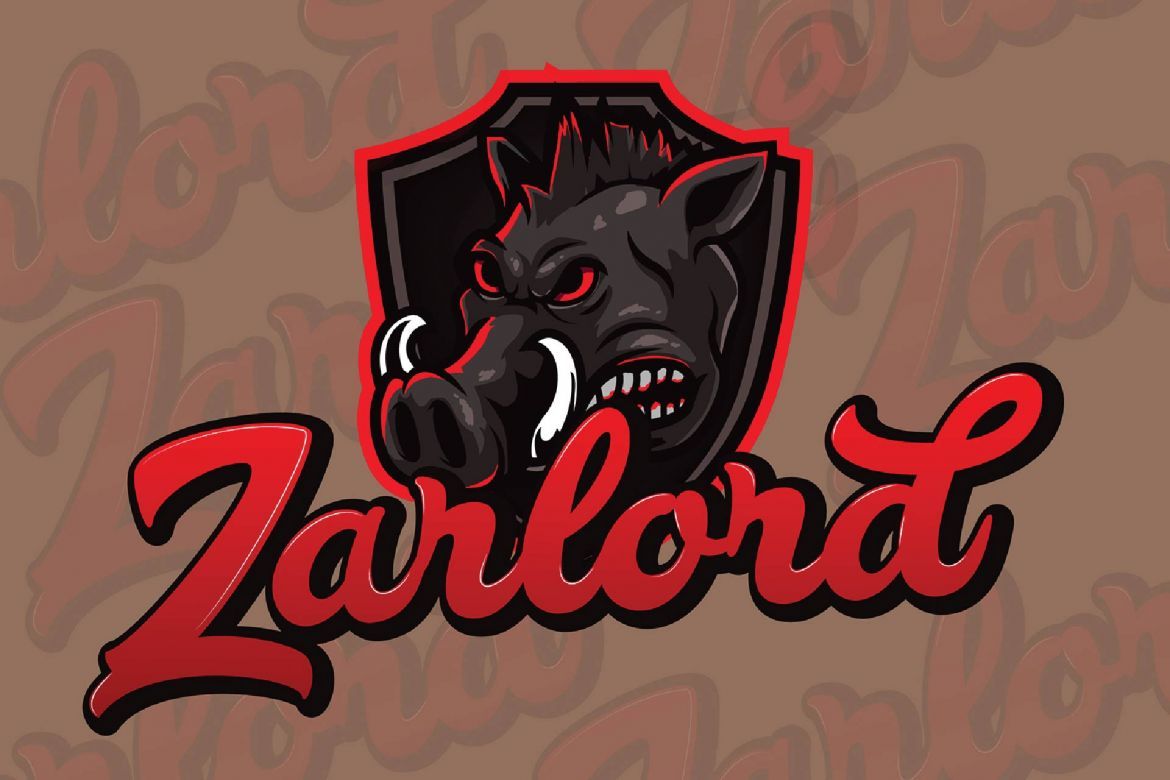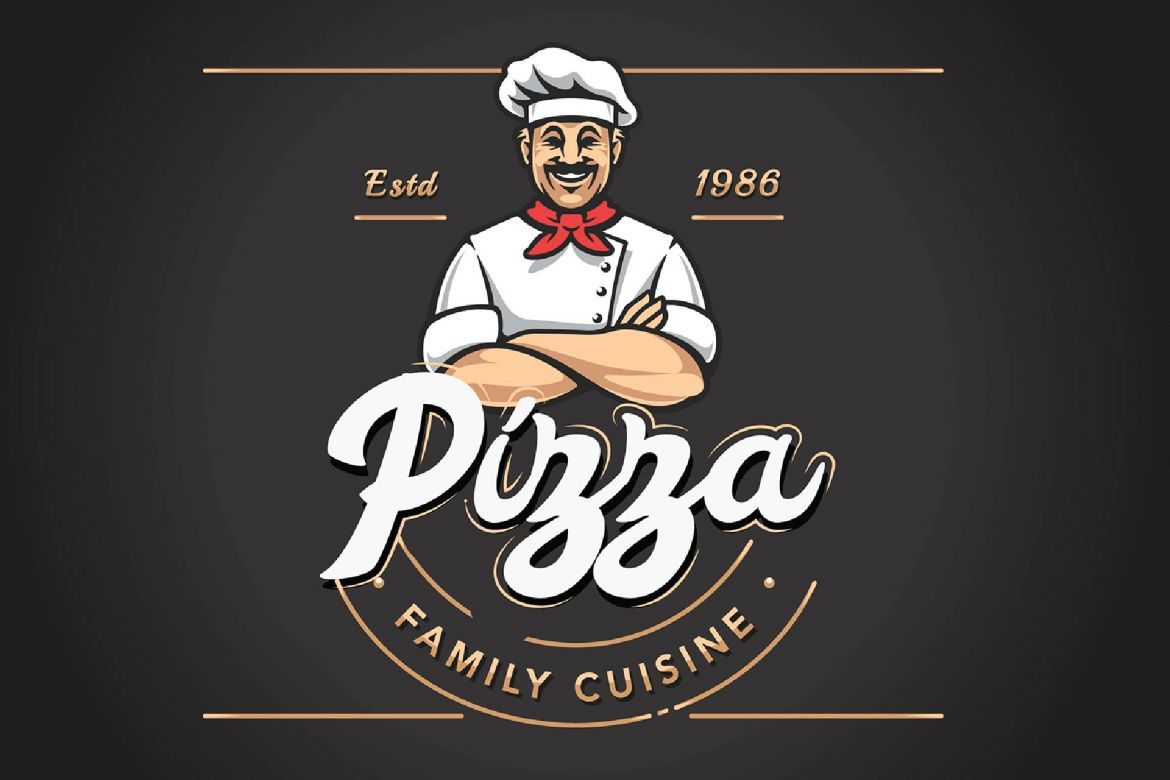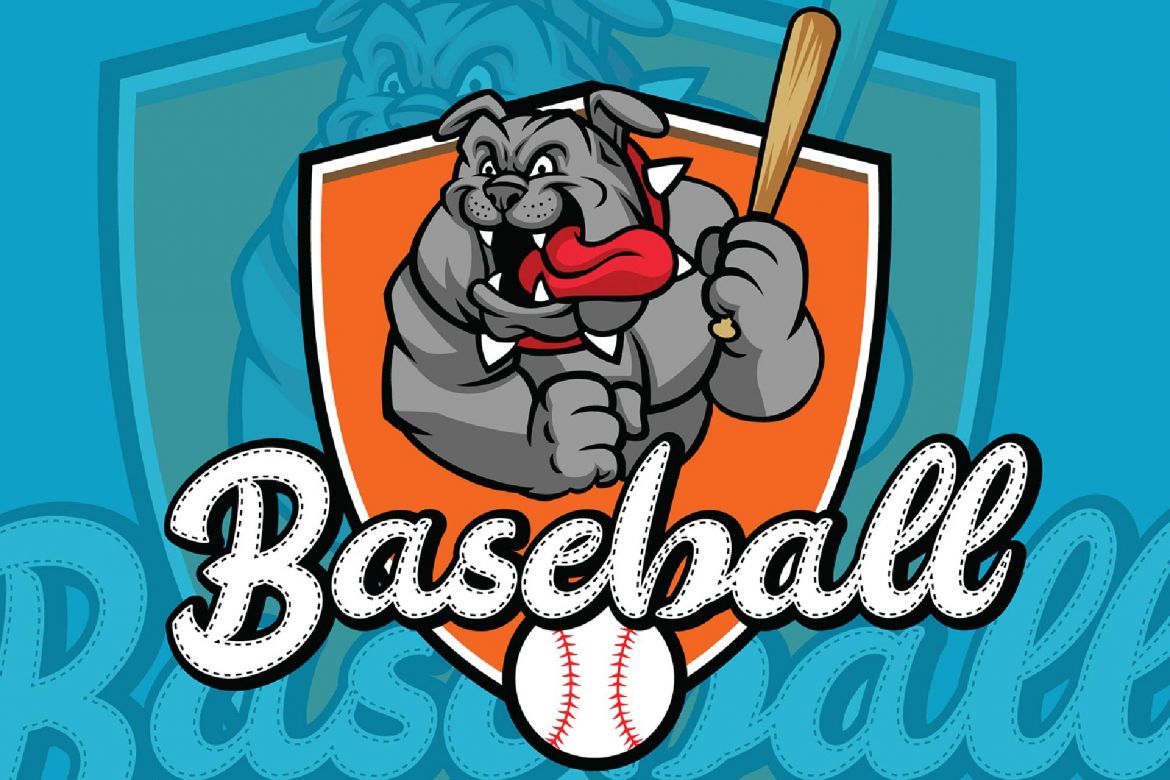
Aloha - Casual Bold Typeface
Aloha - Casual Bold Typeface with a calligraphy style, So beautiful on invitation like greeting cards, branding materials, business cards, quotes, posters, and more!
The alternative characters were divided into several features such as Stylistic Sets, Stylistic Alternates, Contextual Alternate, SWASH and Ligature.
• alternates and ligatures